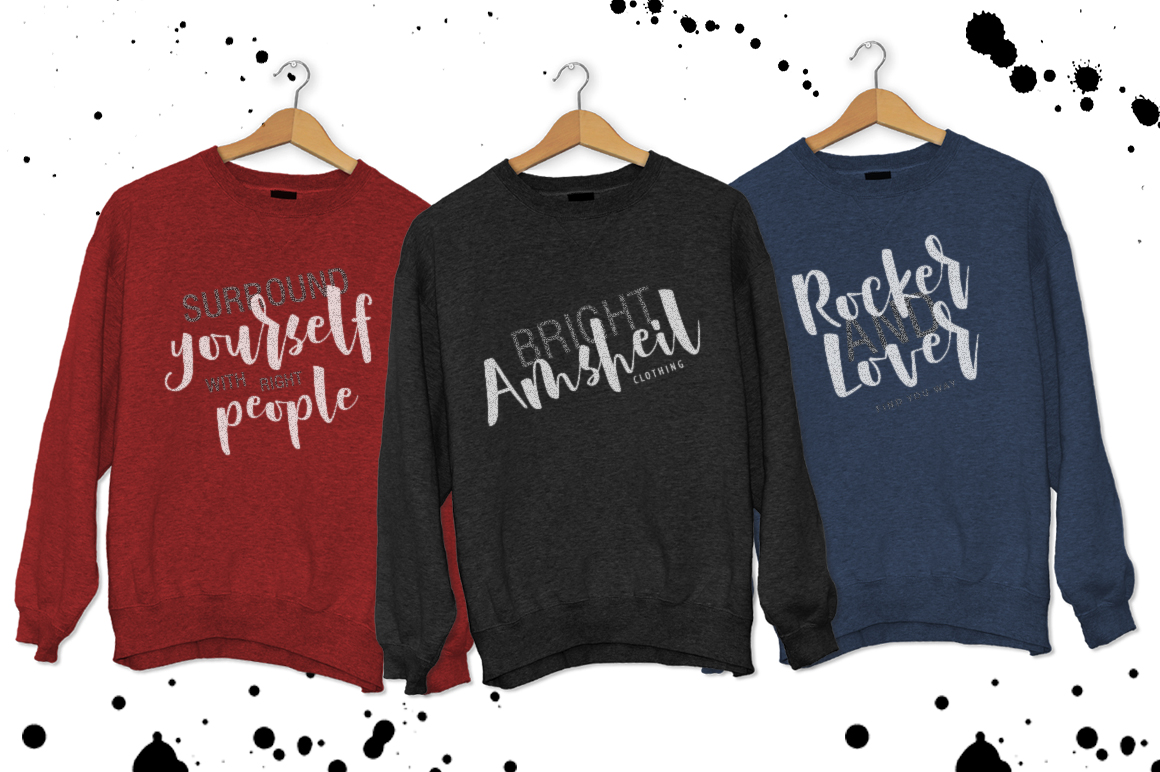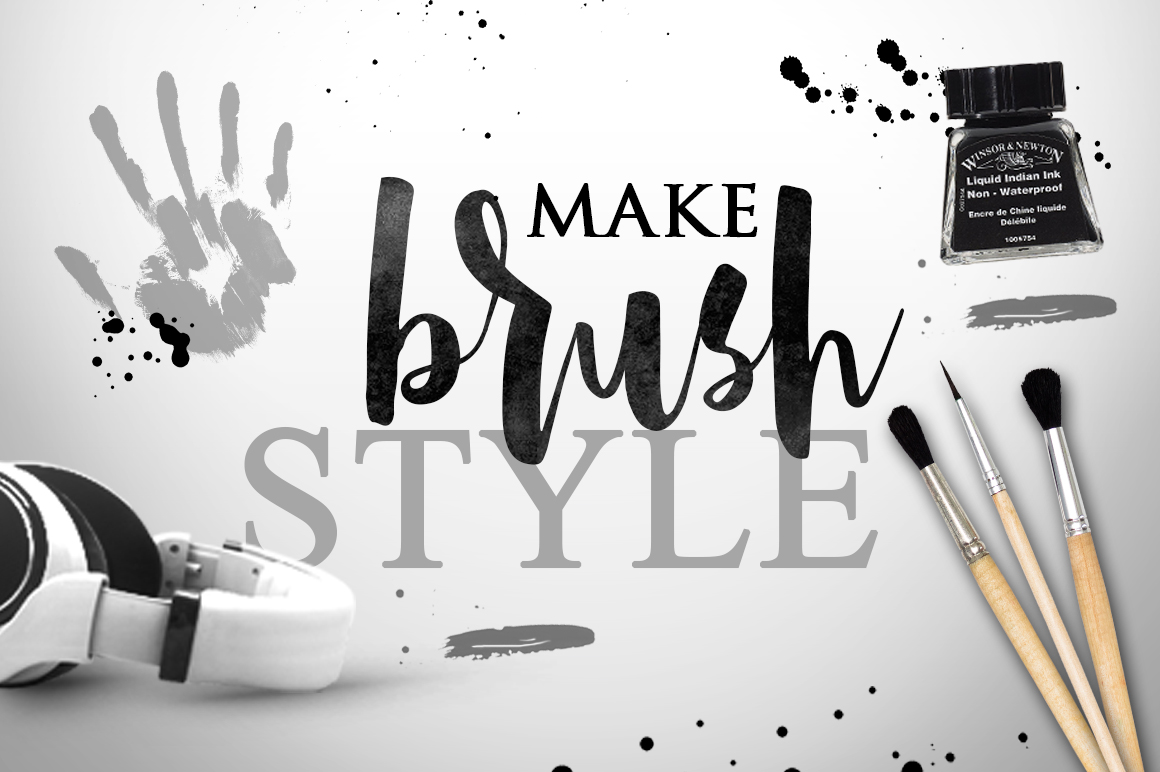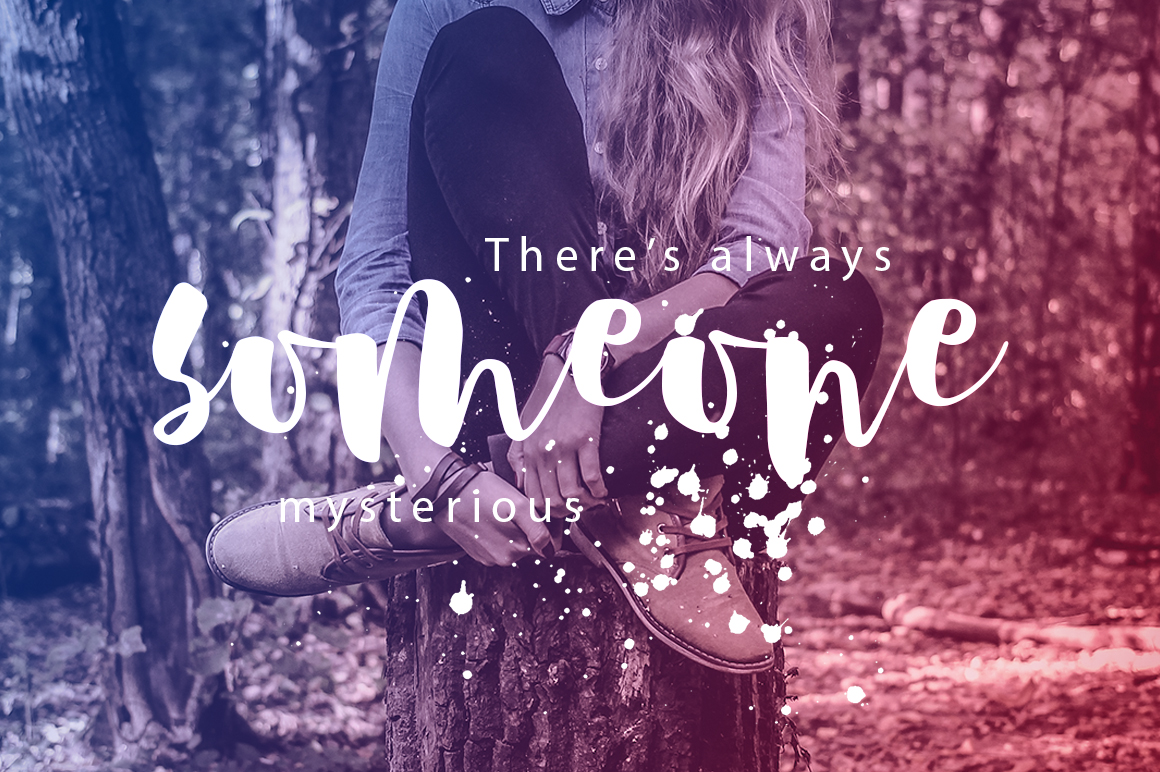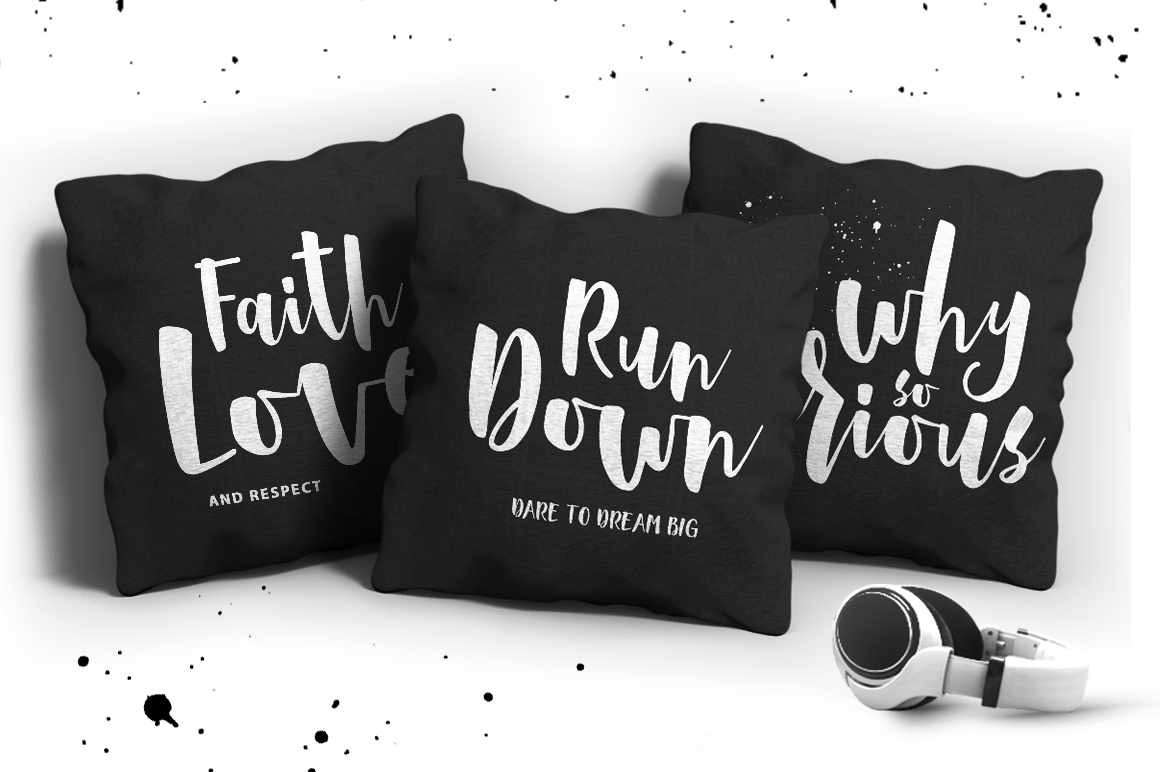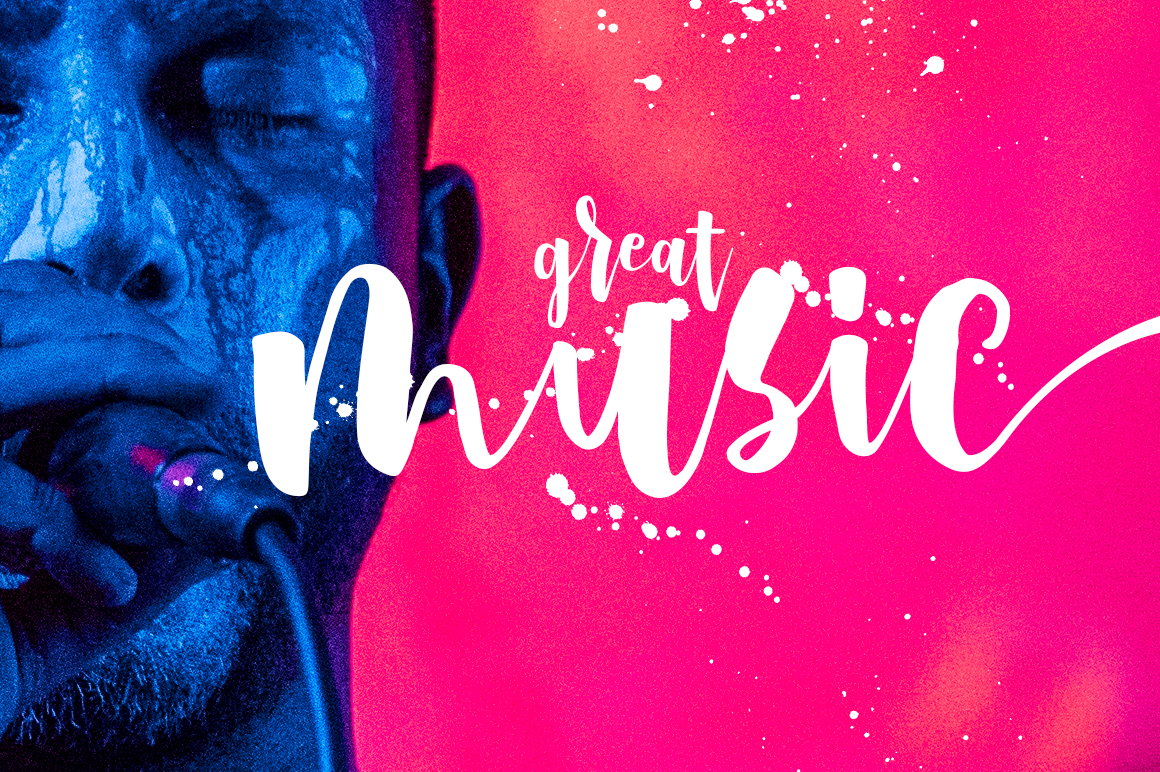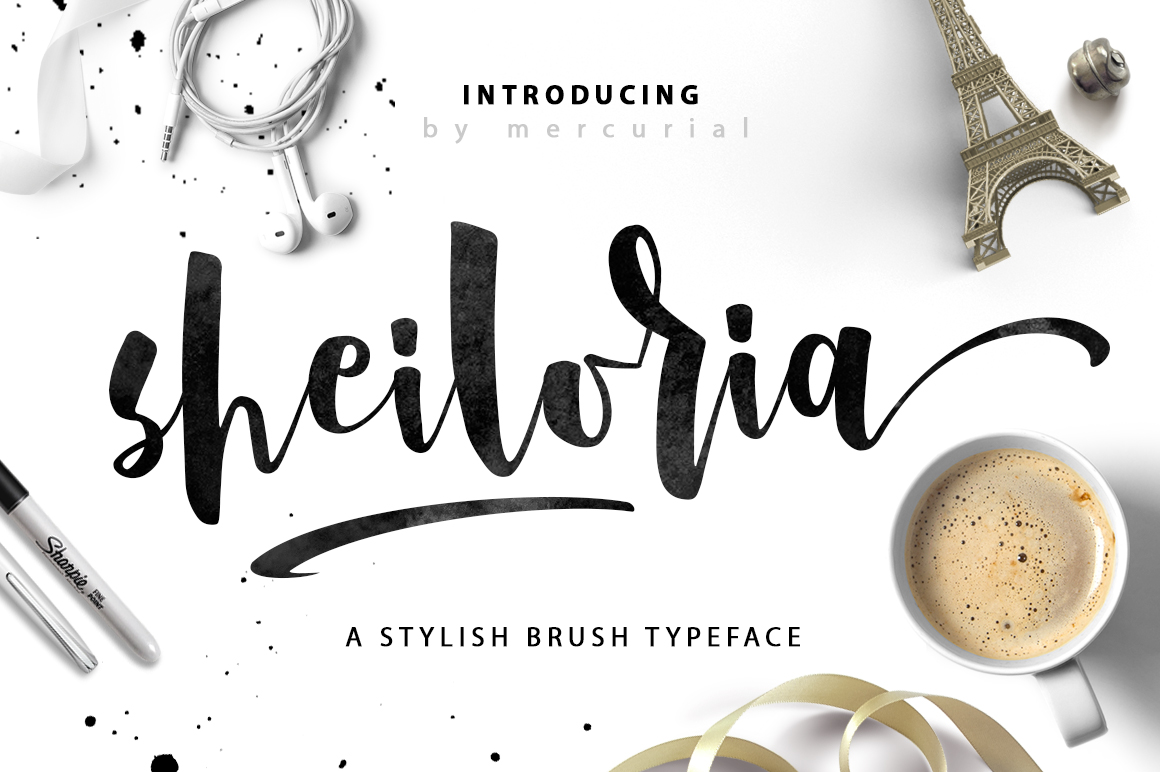
About Sheiloria Font
Sheiloria is a stylish brush typeface. This flexible font is suitable for many purposes and will help you put a finishing touch on your projects. Add this lovely freebie to your creations and take your designs to the next level!